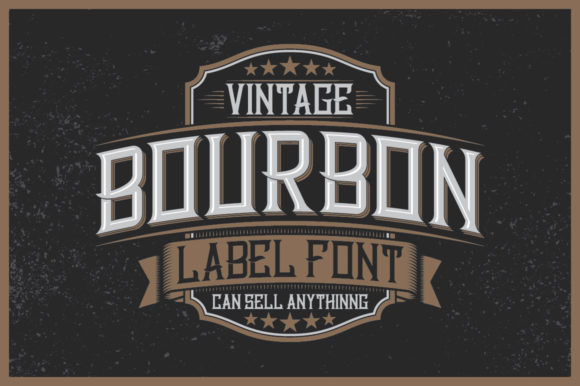
The Bold Statement of Bourbon Font: A Designer’s New Best Friend
I’ll never forget the design project that led me to discover Bourbon Font. I was working on a poster for a craft fair, and I needed a font that would make a statement. Something bold, something fierce, something that would grab attention and refuse to let go. After hours of scrolling through font libraries and trying out different combinations, I stumbled upon Bourbon Font. And let me tell you, it was love at first sight! 💕
What I Love About Bourbon Font
- ✨ Assertive and bold: Bourbon Font is not for the faint of heart. It’s a statement maker, a conversation starter, and a design game-changer.
- ✅ Retro vibes: With its unique blend of classic and modern elements, Bourbon Font brings a touch of nostalgia to any design.
- ⚡️ Versatile: Whether you’re designing a poster, flyer, or print material, Bourbon Font adapts seamlessly to different contexts and styles.
While Bourbon Font is an amazing addition to any design toolkit, it’s not without its quirks. For instance:
- 🤔 Limited legibility at small sizes: Bourbon Font is best used at larger sizes (24pt and above) to ensure maximum impact and readability.
- ⚠️ Some characters may not work well in tight kerning situations: Be mindful of letter spacing to avoid visual clutter.
- Experiment with OpenType features, such as stylistic alternates, to add visual interest to your design.
Bourbon Font was inspired by the classic typography of the 19th century, with a modern twist. The designer, who wishes to remain anonymous, drew inspiration from vintage posters, signage, and print materials to create a font that would be both bold and elegant. The result is a font that’s perfect for designers, crafters, and creative hobbyists who want to add a touch of sophistication and whimsy to their designs.
Q: What is the best font size to use with Bourbon Font?
A: Bourbon Font is best used at larger sizes (24pt and above) to ensure maximum impact and readability.
Q: Is Bourbon Font suitable for body text?
A: Bourbon Font is best used as a display font, and may not be suitable for body text due to its bold and assertive nature.